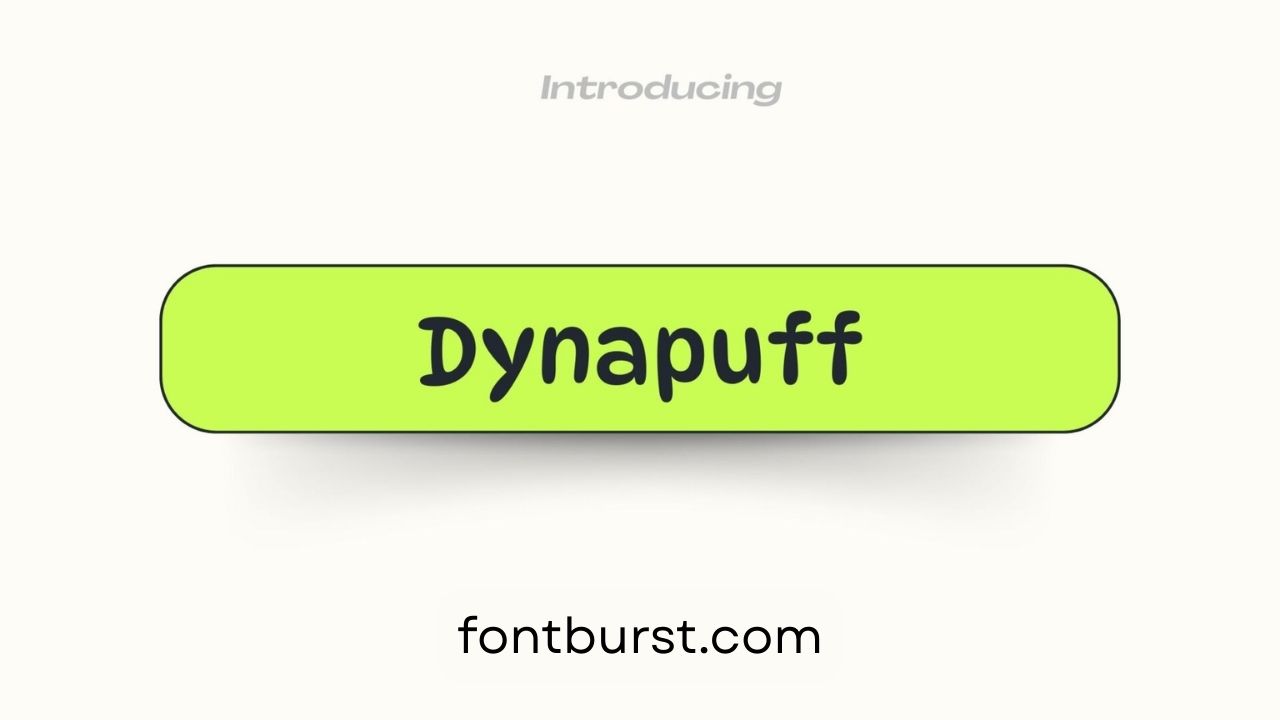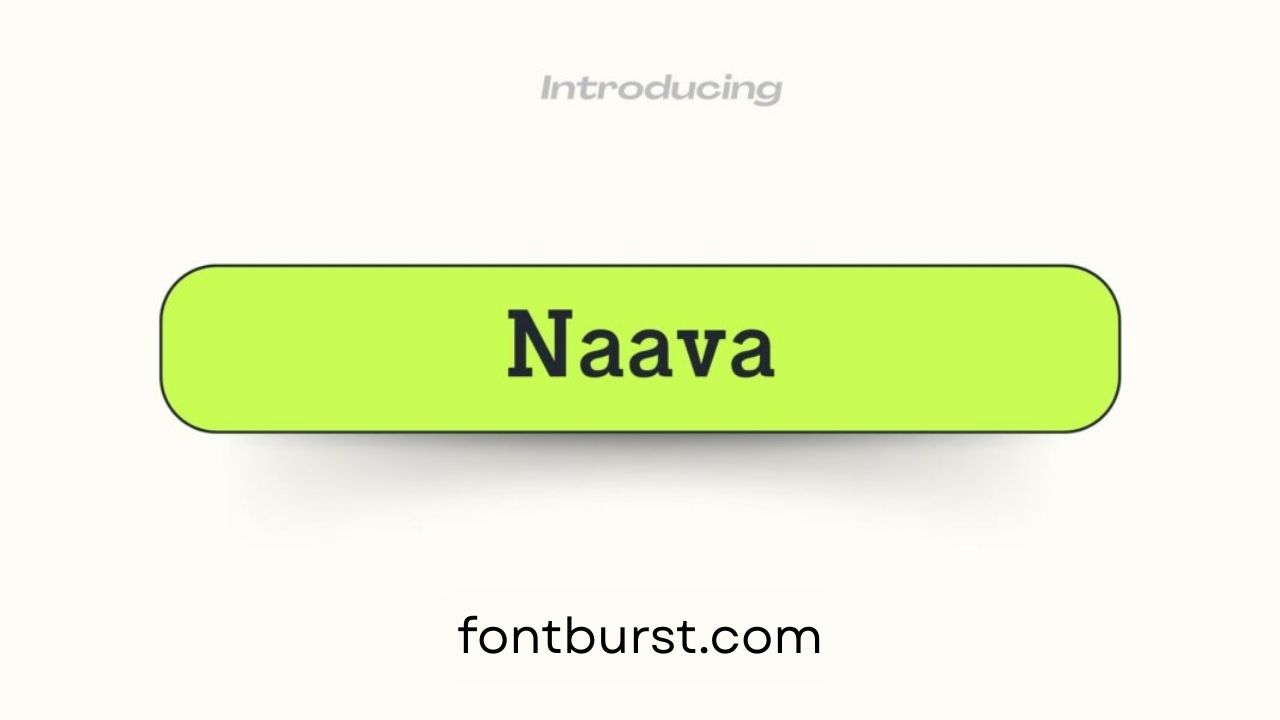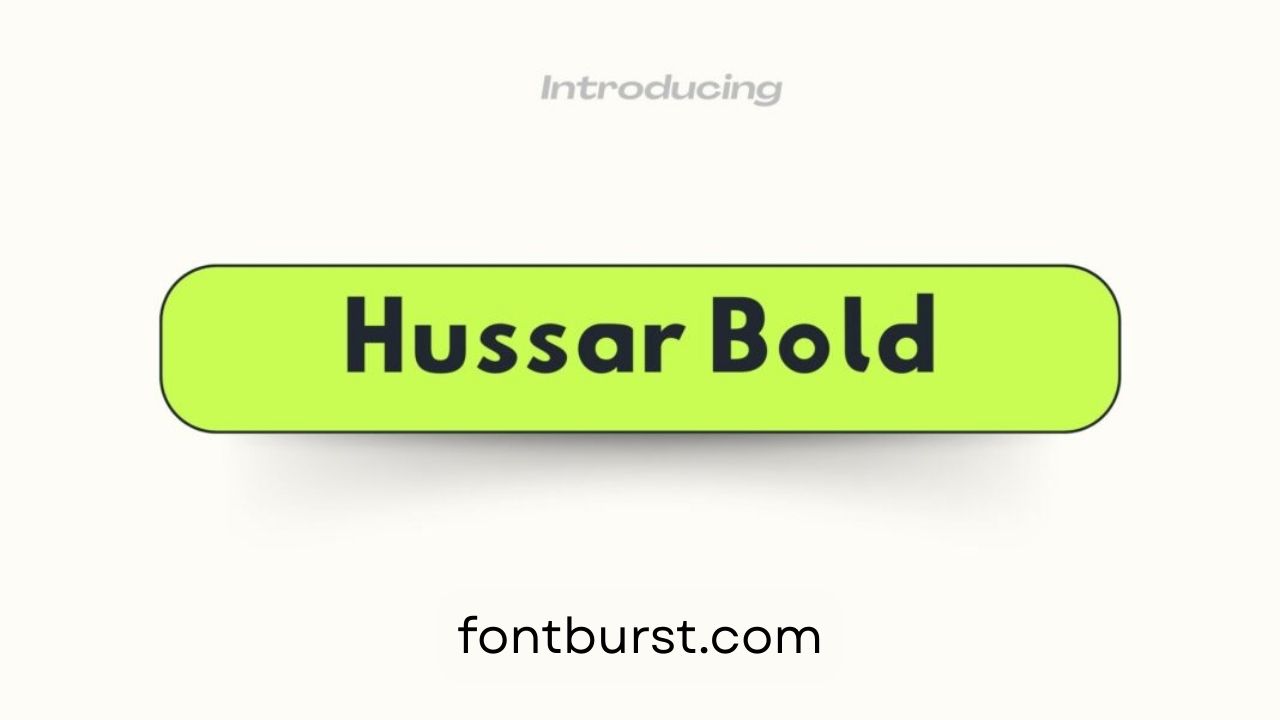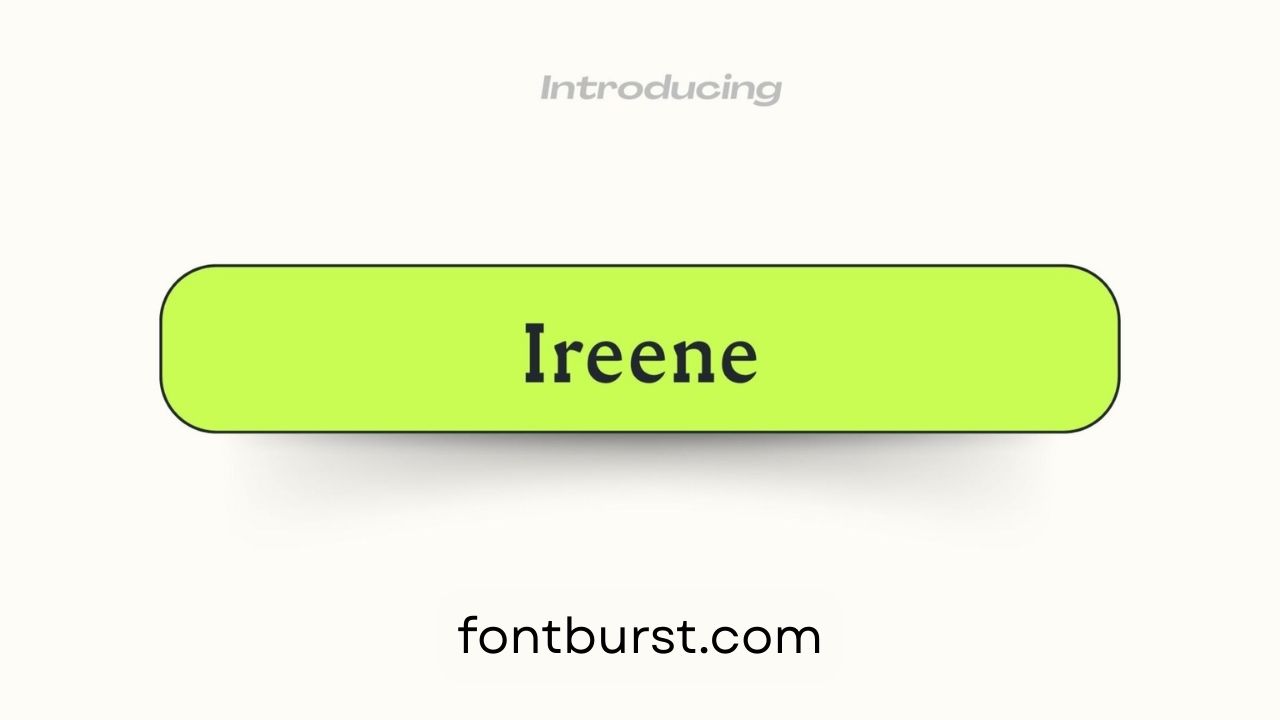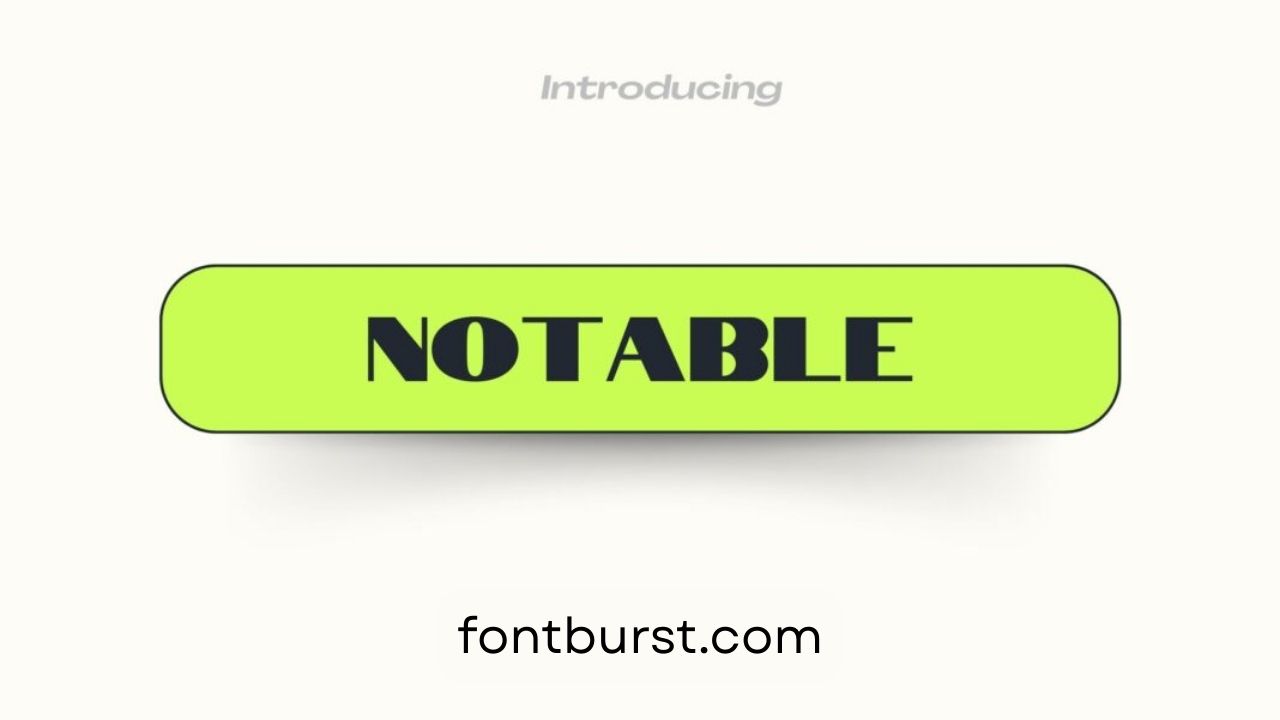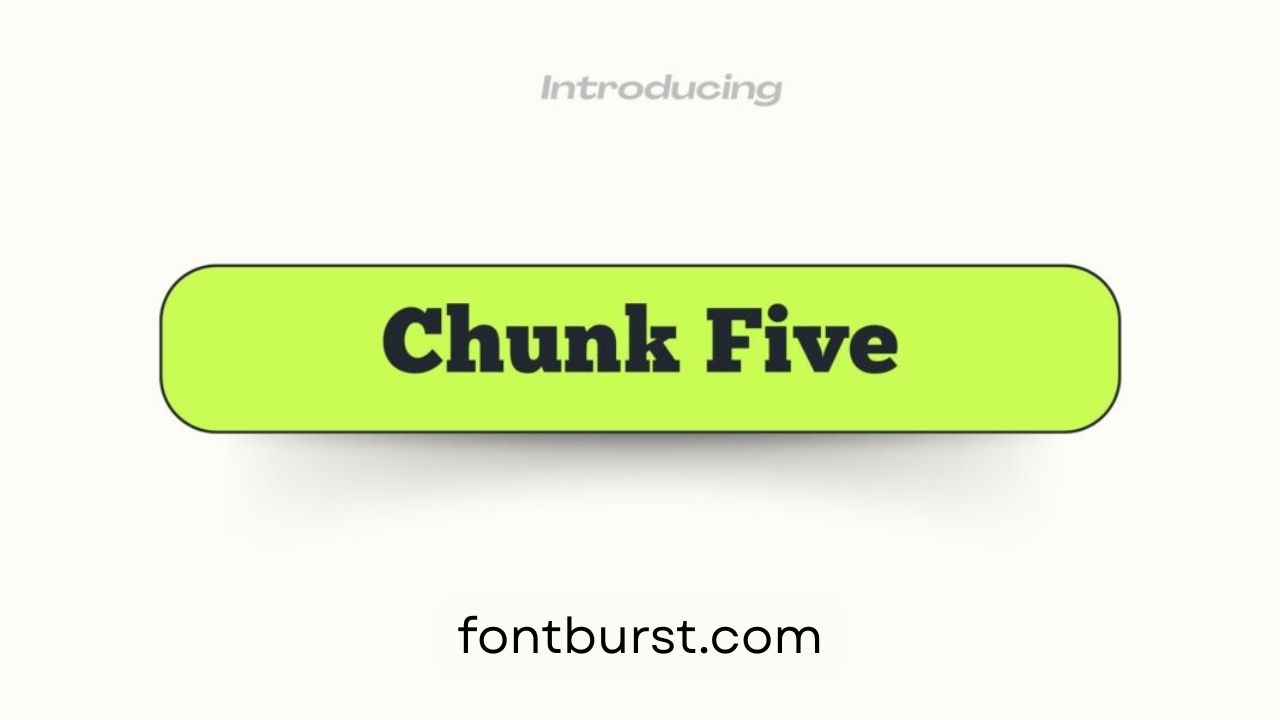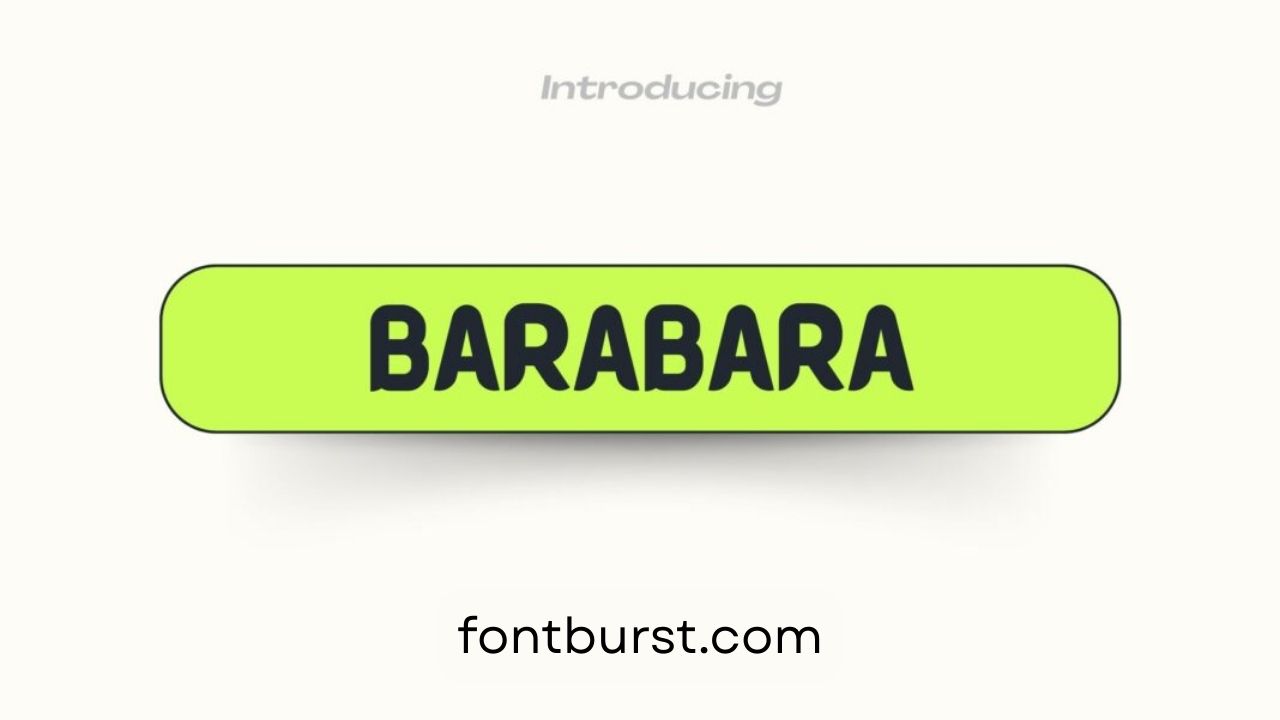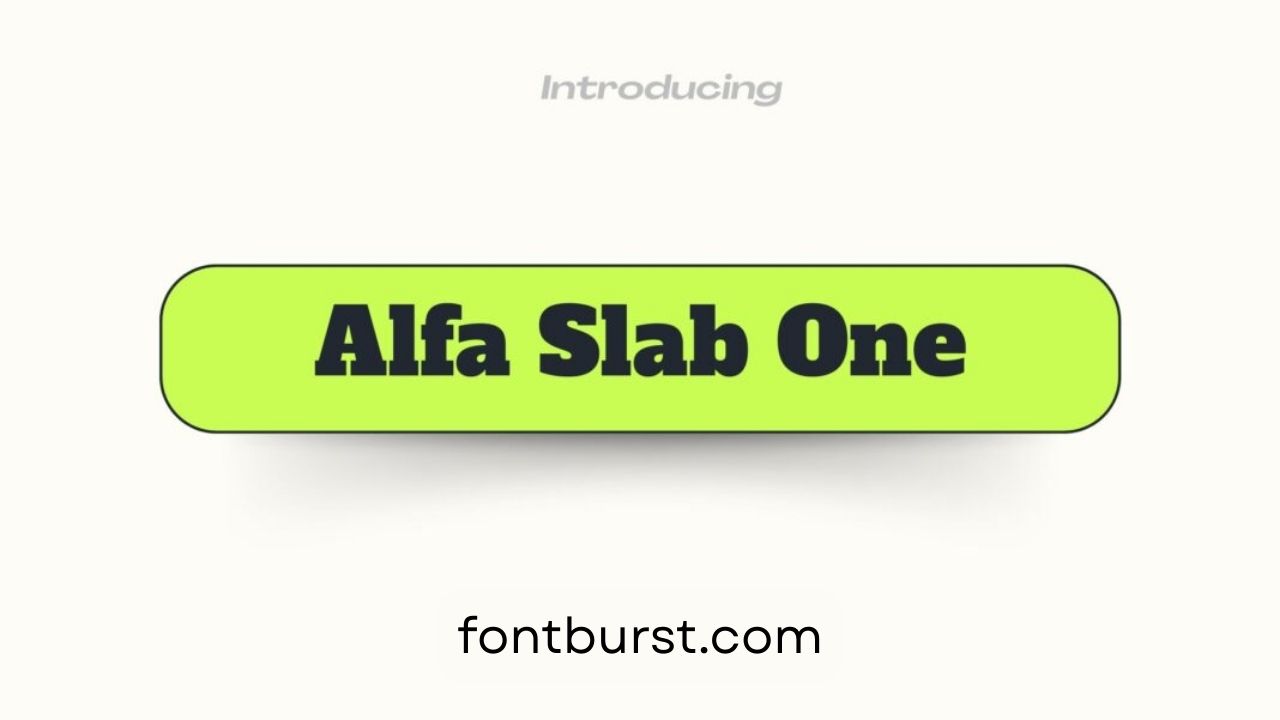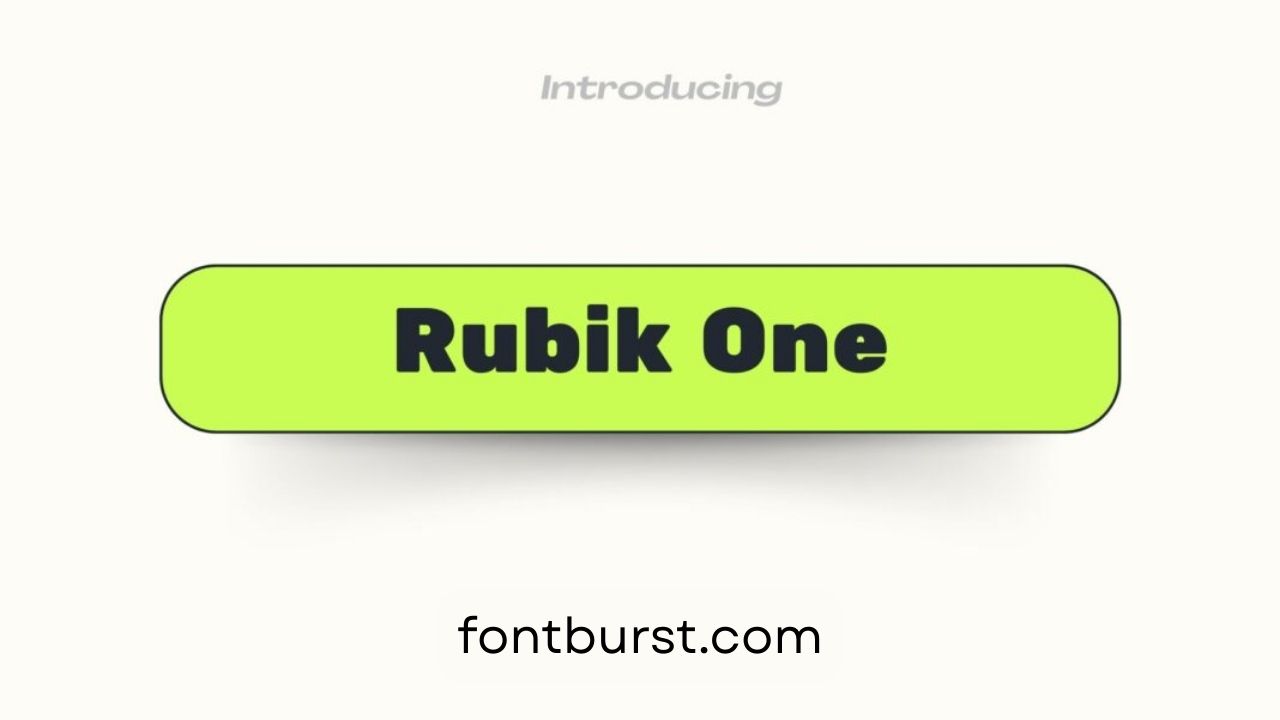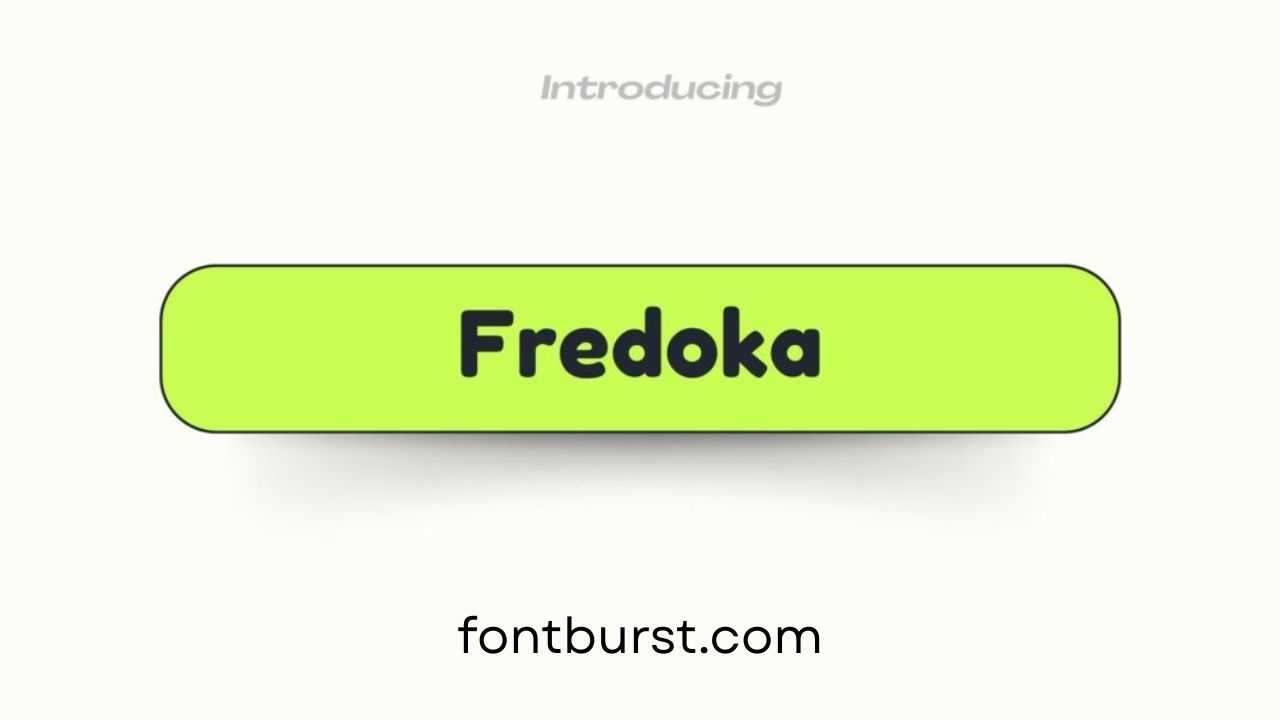
12 Best Masculine Fonts in Canva
Looking to add power and strength to your designs? Choosing the right font can make a huge difference, especially when you’re going for a masculine, bold look. Whether you’re working on a logo, poster, or any design that needs to show confidence, the fonts you pick will set the tone. Canva has a great selection of masculine fonts that can help your designs stand out with authority and style.
From classic serif fonts to modern, blocky typefaces, there’s a font for every strong design. These fonts are not only bold but also versatile, making them perfect for branding, marketing, and personal uses that require a firm and confident feel. Let’s explore 12 masculine fonts that will strengthen your designs with a powerful look.
Why Use Masculine Fonts?
Masculine fonts are often bold, strong, and eye-catching, making them perfect for designs that need to show power, confidence, or authority. These fonts have thick lines, sharp edges, and structured shapes, giving your design a solid and reliable look. They are ideal when you want to create a sense of stability, boldness, and professionalism in your work. Whether you’re designing for a business, event, or product aimed at a male audience or just looking for a font that stands out, masculine fonts help give your designs a firm and confident feel.
Where to Use Masculine Fonts?
Masculine fonts are perfect for logos, posters, and branding projects, especially for industries like construction, automotive, sports, or tech. They work well in any design that needs to communicate strength and reliability. You can also use them for bold headlines, signage, or advertising campaigns that need to grab attention and leave a strong impression. These fonts can add character to packaging, especially for products like men’s grooming, fitness gear, or outdoor equipment.
Top Masculine Fonts in Canva
TAN Headline Font
TAN Headline Font is perfect for bold headlines and attention-grabbing titles. Its solid structure and commanding style make it ideal for masculine-themed posters, logos, and branding materials.
Dynapuff Font
Dynapuff Font has a playful yet strong feel. Its thick, round letters add a bold statement to any design, making it a great choice for products or designs targeting a youthful, energetic male audience.
Reggae One Font
Reggae One Font combines a bold, blocky design with a touch of creative flair. Its wide letters make it perfect for headlines or logos that need to stand out with a strong and confident tone.
Naava Font
Naava Font offers a sleek, modern look with its clean lines and geometric shapes. It’s great for minimalist designs, especially for masculine branding or logos that need a refined yet strong appearance.
Hussar Bold Font
Hussar Bold Font is a solid and sturdy typeface that adds strength to any design. Whether you’re creating a powerful logo or a bold headline, this font’s robust structure makes it a perfect fit.
Ireene Font
Ireene Font blends classic and contemporary styles, making it a versatile choice for masculine designs. Its firm lines and bold letters work well for business cards, logos, and strong branding.
Notable Font
Notable Font is simple yet impactful, with thick, straightforward letters. It’s great for headlines, signage, or any design where you need the text to communicate strength and clarity.
Chunk Five Font
Chunk Five Font is heavy, bold, and perfect for designs that need to grab attention. Its thick, blocky letters make it a great choice for masculine branding, posters, or advertisements that require a powerful look.
Barabara Font
Barabara Font offers a unique, bold style with an artistic touch. Its thick lines make it stand out in designs where you want to project confidence, whether it’s for a masculine-themed poster or a logo.
Alfa Slab One Font
Alfa Slab One Font is a modern slab-serif typeface with a bold, industrial feel. It’s perfect for strong headlines, rugged logos, and any design that needs a firm and commanding presence.
Rubik One Font
Rubik One Font combines a sleek, modern look with bold letters, making it ideal for masculine branding and design projects. It’s a versatile font that works well for both digital and print designs.
Fredoka Font
Fredoka Font has a bold yet approachable style with rounded edges that soften its look while still maintaining a masculine vibe. It’s great for strong yet friendly designs, perfect for posters, websites, or product labels.